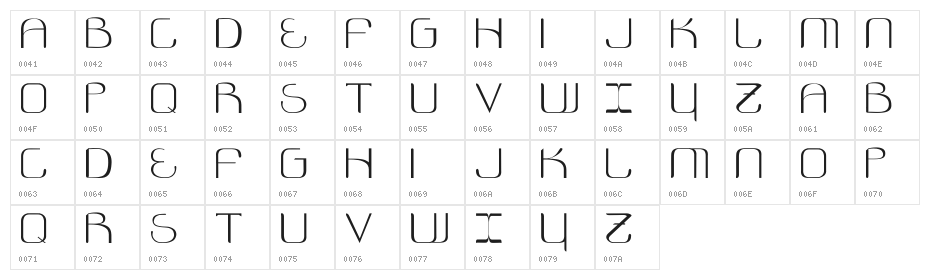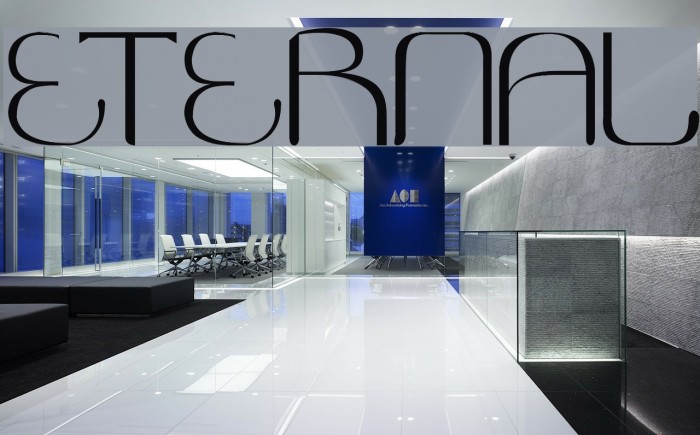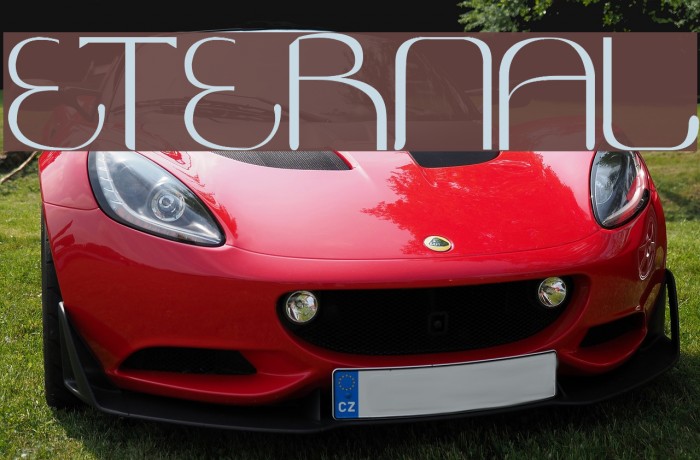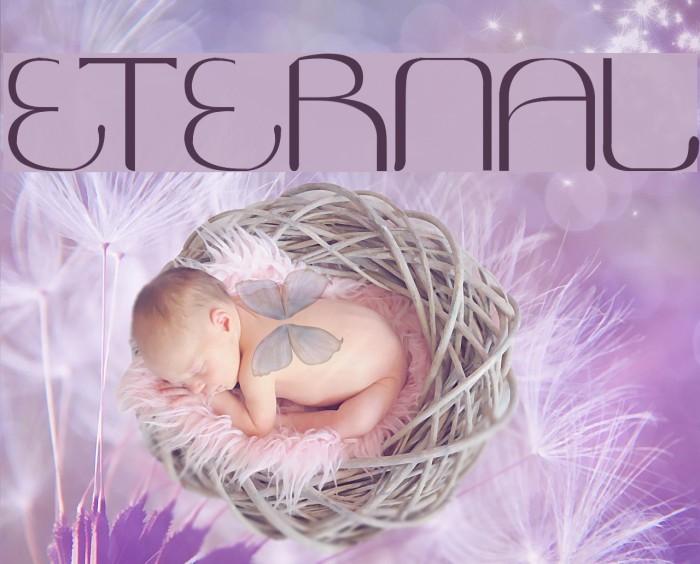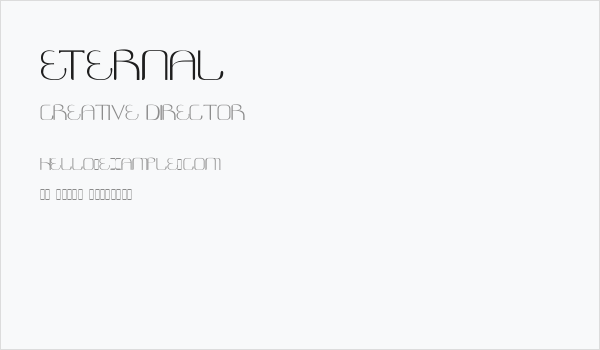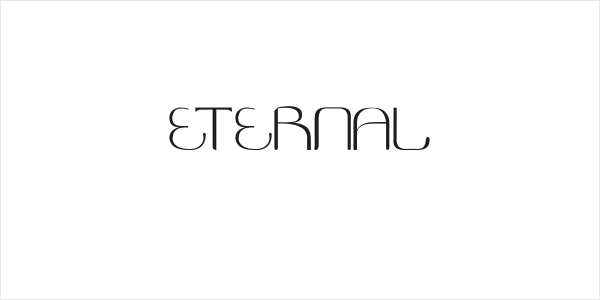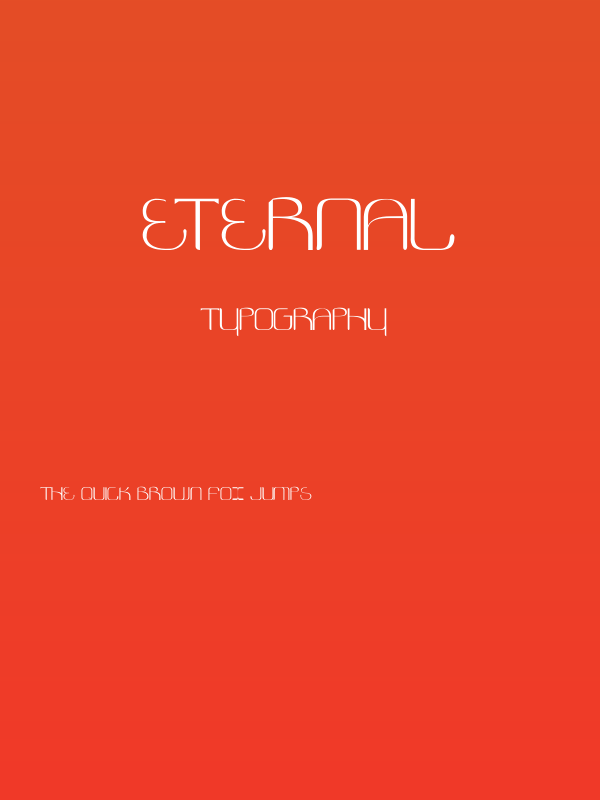
Eternal Font
Eternal Description
This font exhibits a modern and futuristic style with its sleek, geometric letterforms. The characters are constructed with a combination of thin and thick strokes, creating a dynamic contrast that adds visual interest. The uppercase and lowercase letters share a consistent design, emphasizing uniformity and balance. The numerals and special characters maintain the same aesthetic, ensuring cohesion across all elements. The font's clean lines and minimalist approach make it suitable for contemporary design projects.
| Use Case | Headlines, Logos, Digital Interfaces |
| Proposed Projects | Ideal for tech branding, modern posters, digital interfaces, and futuristic-themed designs. |